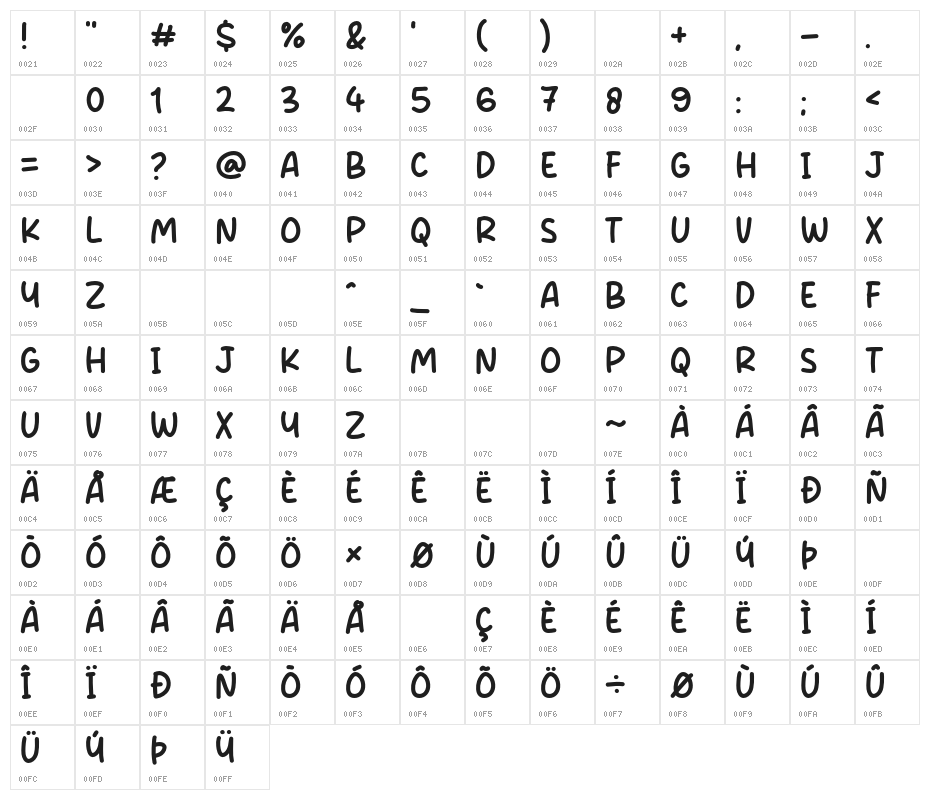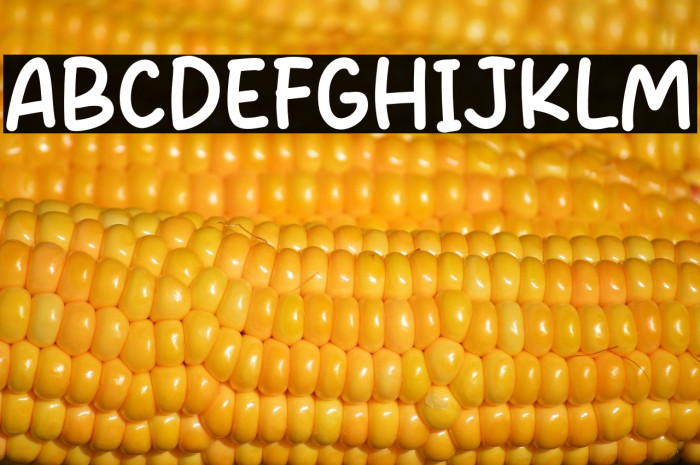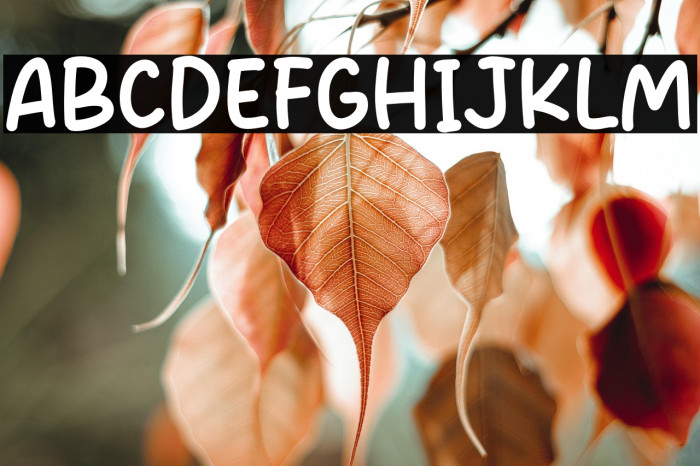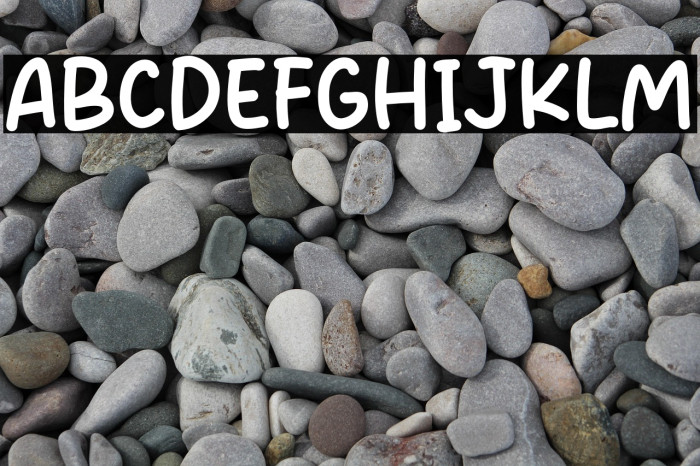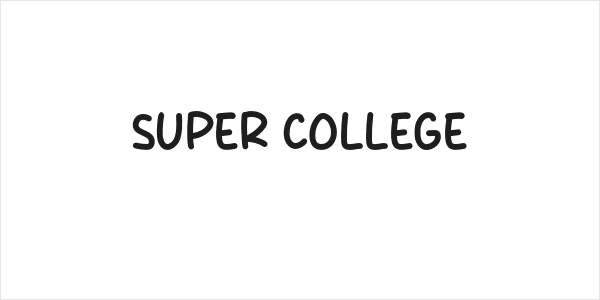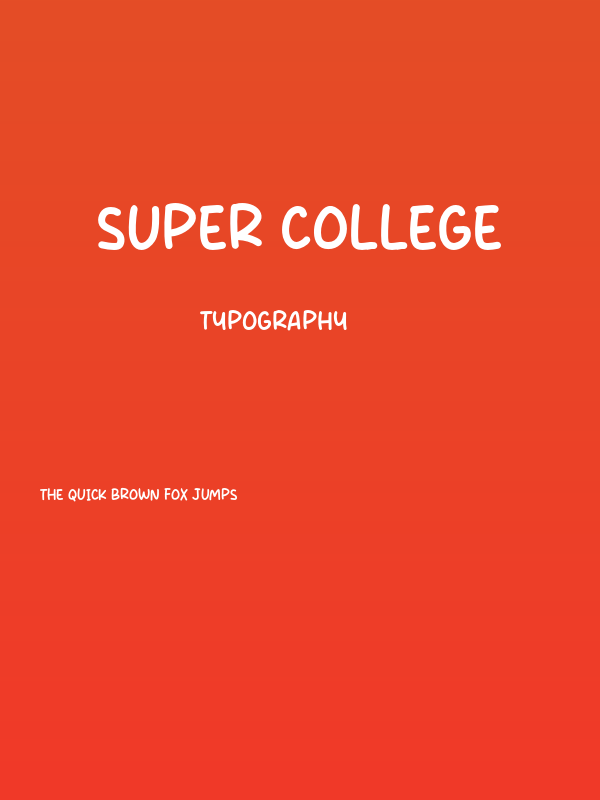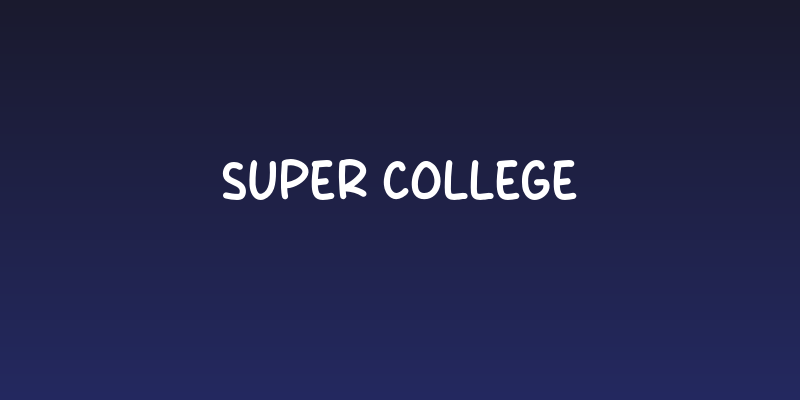
Super College Font
Super College Description
This font features a playful and casual handwritten style, characterized by rounded edges and a slightly uneven baseline that gives it a friendly and approachable appearance. The letters are bold and have a consistent thickness, making them easy to read while maintaining a fun and informal vibe. The numerals and special characters follow the same style, ensuring uniformity across different types of text. This font is ideal for projects that require a personal touch, such as invitations, greeting cards, or children's book covers. Its informal nature makes it less suitable for formal documents but perfect for creative and lighthearted designs.
| Use Case | Logos, Headlines, Informal Text |
| Proposed Projects | Ideal for invitations, greeting cards, children's books, and creative designs. |